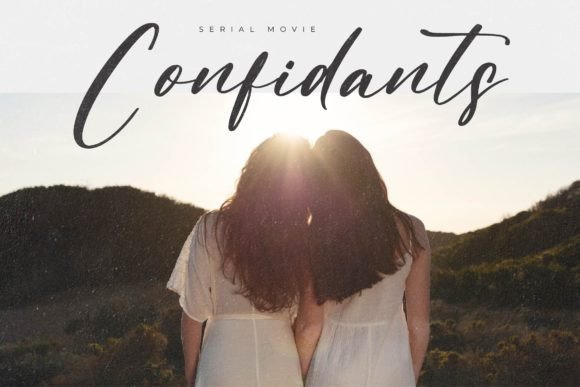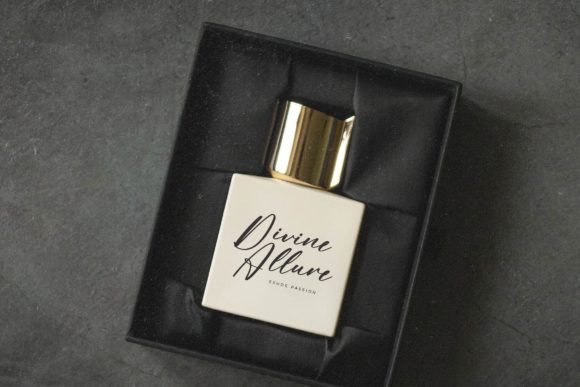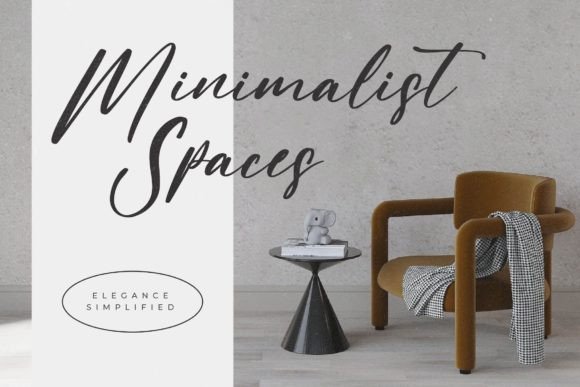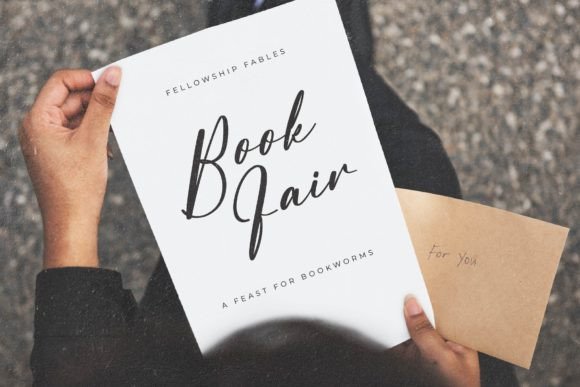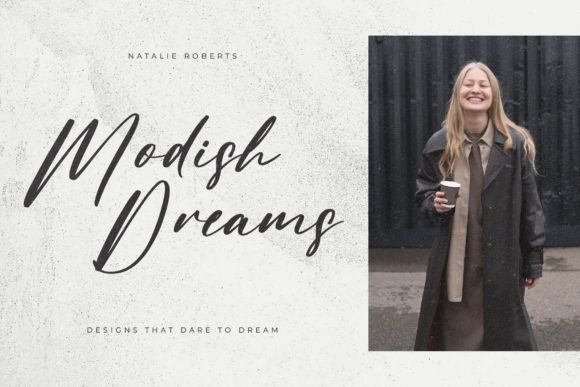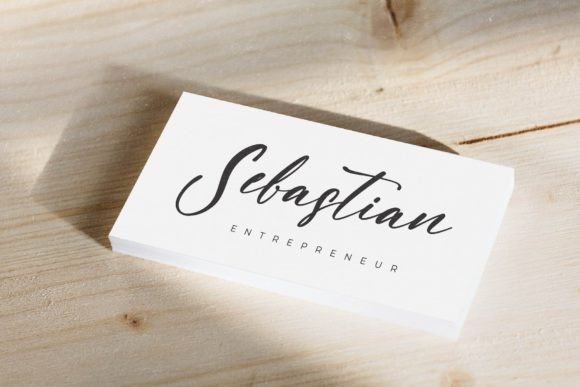
Meet Claudia Martin Font: The Epitome of Urban Sophistication
In the realm of typography, few fonts manage to capture the essence of urban sophistication and charm as effortlessly as Claudia Martin Font. This dazzling handwritten script font has been making waves in the design community, and for good reason. Its unique blend of elegance, confidence, and artisanal flair makes it an ideal choice for a wide range of design projects, from invitations and branding to editorial designs.
The Making of Claudia Martin Font
Claudia Martin Font is more than just a collection of letters; it’s an expression of personality and style. Crafted with meticulous attention to detail, this font boasts flowing, confident strokes that exude a sense of sophistication and poise. Each letter is carefully designed to contribute to the overall aesthetic of the font, making it perfect for designers and crafters looking to add a personal touch to their work.
Key Features of Claudia Martin Font
- Handwritten Script Style: Claudia Martin Font features a beautiful, handwritten script style that adds a touch of warmth and personality to any design.
- Flowing Strokes: The font’s flowing, confident strokes give it a dynamic and elegant feel, perfect for creating visually appealing designs.
- Stylish Flair: With its stylish flair and artisanal twist, Claudia Martin Font brings a unique charm to invitations, branding, and editorial designs.
- Elegance and Sophistication: The font’s elegant and sophisticated design makes it ideal for high-end branding, luxury invitations, and editorial projects.
Uses of Claudia Martin Font
Claudia Martin Font’s versatility is one of its most compelling features. Here are some of the many ways designers and crafters can use this stunning font:
- Invitations: Whether it’s a wedding invitation, birthday party invite, or any other special occasion, Claudia Martin Font adds a touch of elegance and sophistication.
- Branding: For businesses looking to establish a strong brand identity, this font offers a unique and memorable aesthetic that can help set them apart.
- Editorial Designs: Claudia Martin Font is perfect for editorial projects such as magazines, blogs, and newspapers, where its stylish flair can add visual interest and personality.
Why Choose Claudia Martin Font?
In a world where design trends are constantly evolving, Claudia Martin Font stands out for its timeless appeal and versatility. Here are a few reasons why designers and crafters are drawn to this font:
- Personal Touch: Claudia Martin Font brings a personal touch to any project, making it feel more approachable and engaging.
- Contemporary yet Artisanal: The font combines contemporary elegance with an artisanal twist, making it perfect for designers looking for something unique.
- Ease of Use: Claudia Martin Font is designed to be user-friendly, making it easy to incorporate into a wide range of design projects.
Claudia Martin Font is a dazzling handwritten script font that exudes urban sophistication and charm. Its flowing, confident strokes and stylish flair make it perfect for a variety of design projects, from invitations and branding to editorial designs. With its unique blend of elegance, confidence, and artisanal twist, Claudia Martin Font is sure to become a staple in the toolkit of designers and crafters looking to add a personal touch to their work.